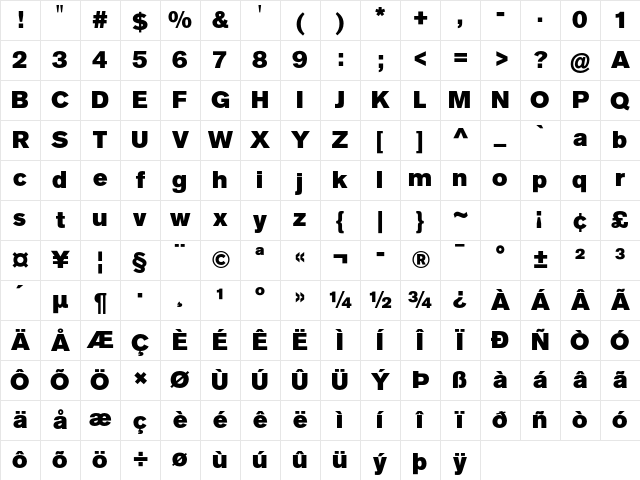
Akzidenz-Grotesk Black Bold
Akzidenz-Grotesk Black Family
Design Context for Akzidenz-Grotesk Black
Akzidenz-Grotesk Black takes a clean, functional approach - its unadorned letterforms prioritise legibility and work reliably across screen and print environments. Its bold stroke weight gives it real presence on the page.
Font Pairing: Use Akzidenz-Grotesk Black for headlines alongside a lighter-weight sans or serif for body copy to establish clear visual hierarchy.
Pro Tip: Use Akzidenz-Grotesk Black for UI labels, navigation, and short-form body copy where clean legibility is the priority.